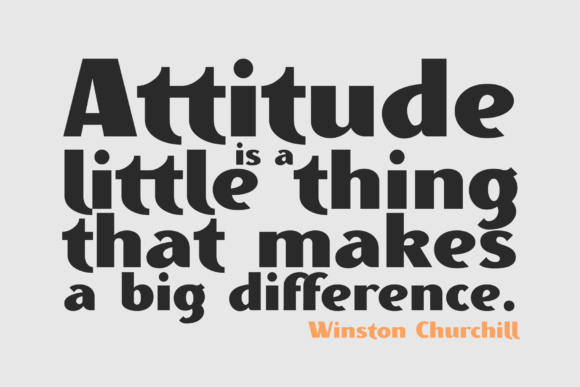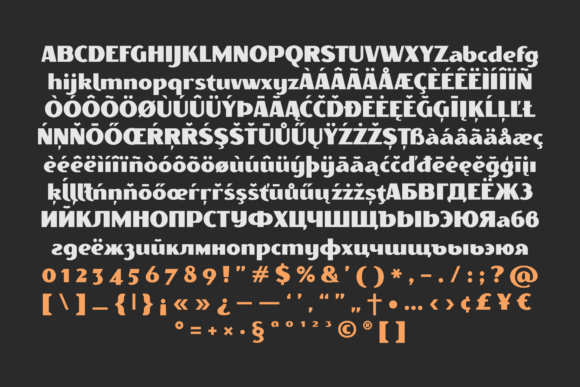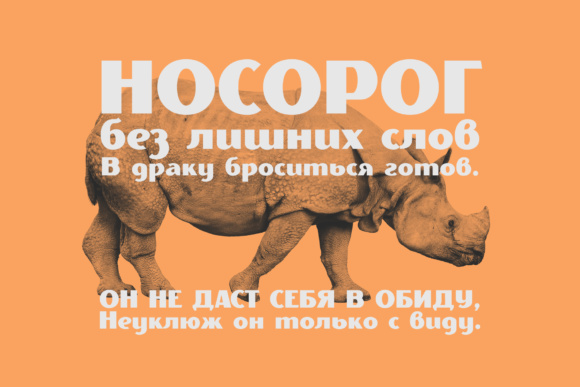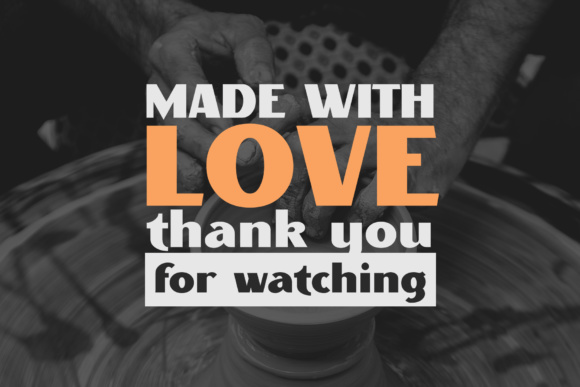
The Ethna Font: A Modern Sans-Serif Marvel
An Honest Review of Ethna Font
What I Love About Ethna Font
- ✅ Modern and Vintage Aesthetic: Ethna perfectly balances modern and vintage vibes, making it versatile for various design projects.
- ✅ Clean and Legible: The font’s clean lines and sans-serif design ensure excellent legibility, even at smaller sizes.
- ✅ OpenType Features: Ethna comes with a range of OpenType features, including stylistic alternates and glyphs, which allow for creative experimentation.
While Ethna is an excellent font, it’s not without its quirks. ⚠️ Some users may find that:
- 🤔 Limited Character Set: Ethna’s character set, while extensive, might not cover every special character or language.
- 🤔 Not Suitable for Body Text: Due to its modern and elegant design, Ethna might not be the best choice for lengthy body text.
The Story Behind Ethna Font
While the origins of Ethna might be shrouded in mystery, it’s easy to imagine that its designer was inspired by the intersection of modernity and tradition. Perhaps they sought to create a font that would bridge the gap between clean, minimalist design and the warmth of vintage typography. 💡
The result is Ethna: a font that effortlessly balances contrasting aesthetics, making it an invaluable tool for designers seeking a versatile and stylish typeface.
Q: What makes Ethna a modern sans-serif font?
A: Ethna’s clean lines, geometric shapes, and elegant design elements contribute to its modern sans-serif classification.
Q: Does Ethna support OpenType features?
A: Yes, Ethna comes with a range of OpenType features, including stylistic alternates and glyphs, allowing for creative flexibility.
Q: Is Ethna suitable for body text?
A: While Ethna is legible, its elegant design might make it more suitable for headings and titles rather than lengthy body text.
| Font Name | Ethna Font |
| Author | NREY |